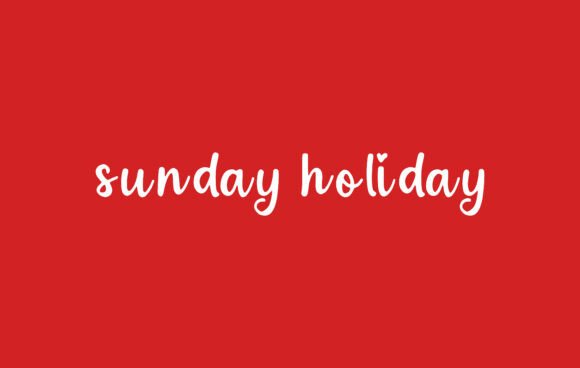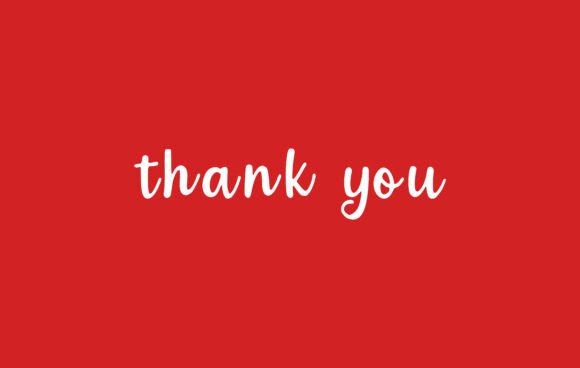
Introduction to Halo Scriptum Font
As a designer, there’s nothing quite like the rush of inspiration that comes when a new project is born. You’ve got a vision, a concept, and a message to convey – but the right font can make all the difference. That’s where the Halo Scriptum Font comes in, a stunning handwritten font that adds a touch of romance and whimsy to any design.
With its legible, flowing script and high-quality design, the Halo Scriptum Font is the perfect addition to any creative project. Whether you’re working on a magazine headline, a social media campaign, or a wedding invitation, this font is sure to elevate your design and leave a lasting impression. And the best part? It’s available for free download, making it an invaluable resource for designers on a budget.
Key Features of Halo Scriptum Font
- Unique and elegant script design perfect for creative projects, offering a touch of sophistication and refinement.
- Includes a range of characters, including uppercase and lowercase letters, numbers, and punctuation marks, making it suitable for a variety of creative projects.
- Designed with high resolution, suitable for use in print and digital applications, including posters, invitations, and digital signage.
Honest Review: Halo Scriptum Font
As a designer, I’m always on the lookout for high-quality design resources that can elevate my creative projects. The Halo Scriptum Font has been a recent addition to my toolkit, and I’m excited to share my honest review with you.
- ✨ Beautifully crafted script font with a modern twist: The Halo Scriptum Font is a stunning addition to any design project, with its elegant and flowing lines.
- ✨ High quality: The font is incredibly detailed and looks great at various sizes, making it perfect for headings and titles.
- ⚠️ Limited character set: Unfortunately, the font only comes with a limited character set, which may not be suitable for longer texts or paragraphs.
Overall, I’m really impressed with the Halo Scriptum Font. While it may have some limitations, its high quality and beautiful design make it a valuable addition to any designer’s toolkit. If you’re looking for a stunning script font for your creative project, I highly recommend giving it a try.
To get the most out of the Halo Scriptum Font, use it in combination with other design elements to create a visually appealing design. Experiment with different font sizes, colors, and arrangements to find the perfect balance.
The Halo Scriptum Font is perfect for various design projects, including:
- Wedding invitations
- Quote graphics and posters
- Stationery and business cards